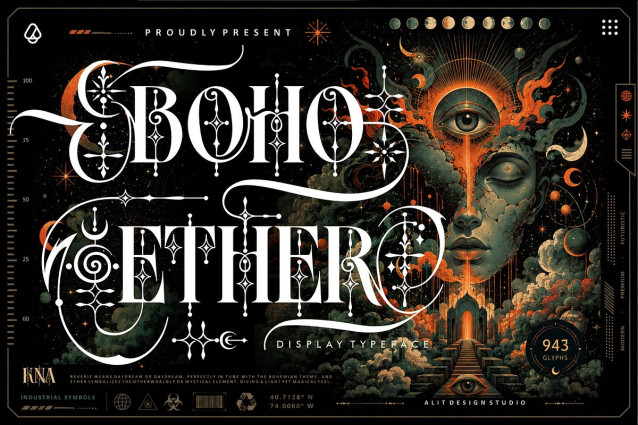
Boho Ether Font
Boho Ether Font a beautifully crafted typeface that effortlessly blends bohemian free-spiritedness with ethereal elegance. Designed for creatives who demand both versatility and premium style, this font is the perfect choice for making your designs stand out with a touch of sophisticated, organic charm.
With an incredible collection of 943 glyphs, Boho Ether provides endless creative possibilities. It comes fully equipped with a vast range of Alternate characters (ranging from SS01 to SS07) and beautifully curated Ligatures. This allows designers to play with typography, creating custom, fluid, and highly unique typographic compositions that feel bespoke.
Whether you are designing high-end branding, elegant wedding invitations, aesthetic editorial spreads, or captivating social media graphics, Boho Ether adapts seamlessly to bring your creative vision to life.